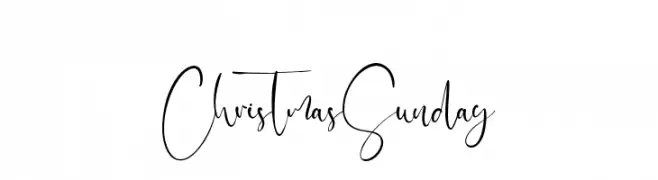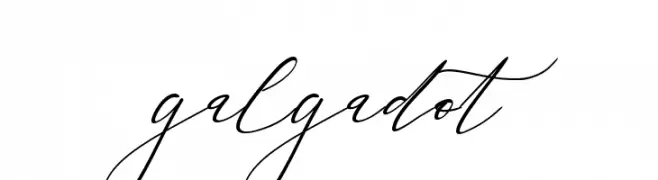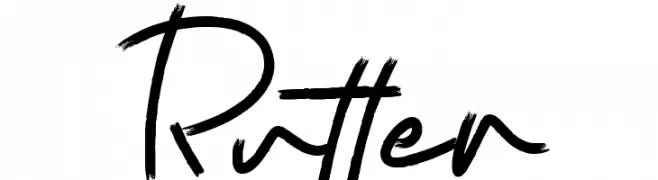
A dynamic and elegant handwritten font with fluid strokes.
A whimsical and elegant handwritten script font with flowing lines and artistic flourishes.
A playful, handwritten font with fluid strokes and a casual style.
A decorative script font with elegant swirls and playful loops.
A playful, hand-drawn font with whimsical, irregular strokes.
A lively, cursive script font with playful loops and a handwritten feel.
An elegant and flowing script font with graceful curves and loops.
A dynamic and expressive handwritten font with fluid, interconnected strokes.
A dynamic, expressive handwritten font with fluid strokes and artistic flair.
A bold, brush-style font with dynamic and energetic strokes.